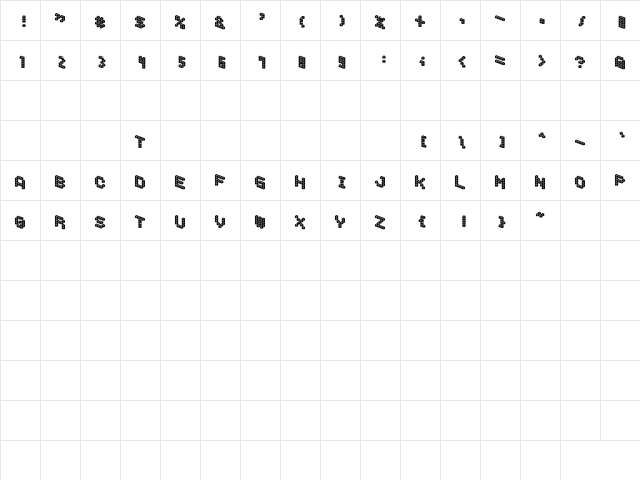
DemonCubicBlockFont Tile Regular
Design Context for DemonCubicBlockFont Tile Typeface
DemonCubicBlockFont Tile is a composed and adaptable typeface that performs quietly and consistently across a wide range of design contexts.